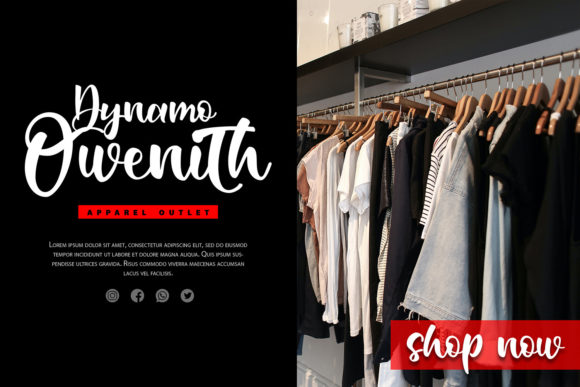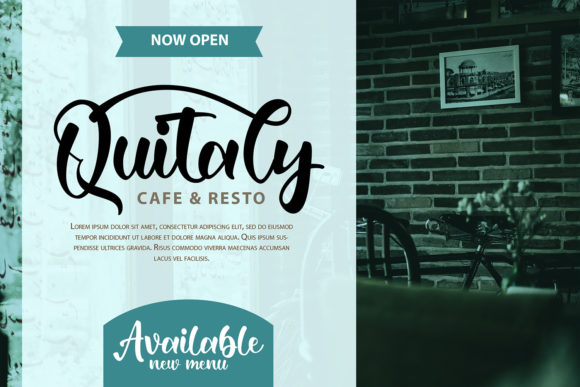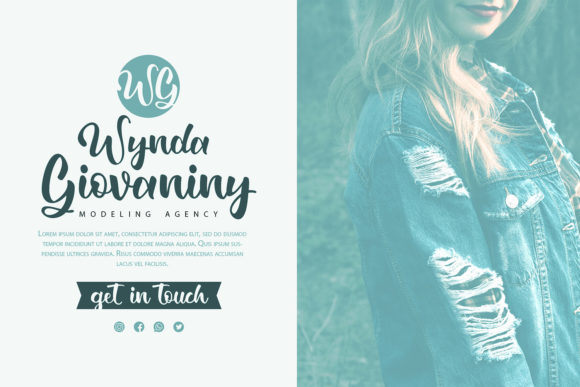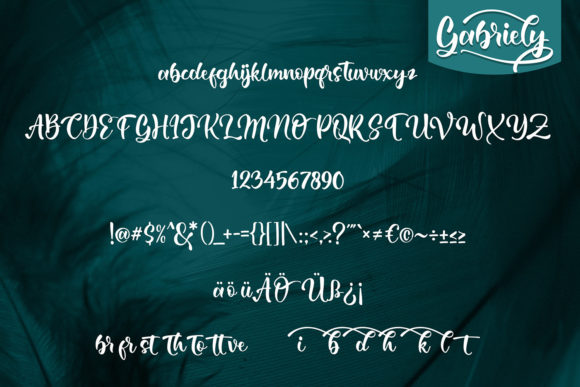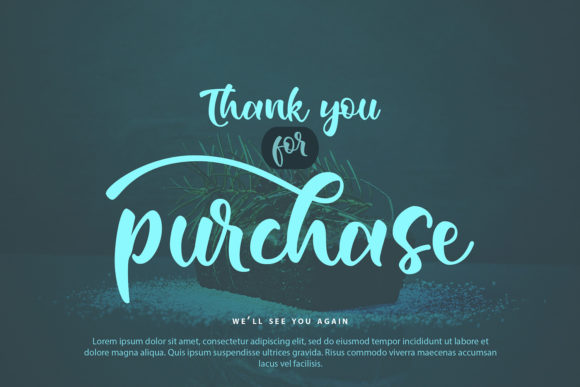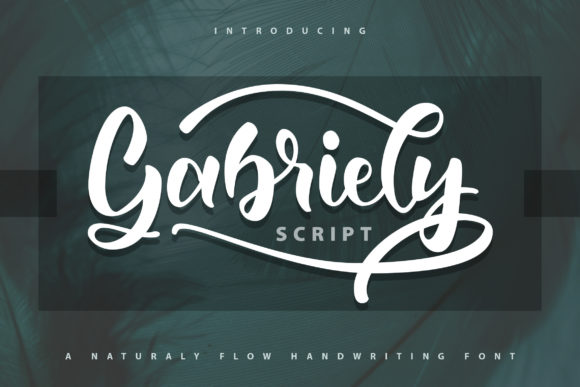
Introducing Gabrelly Font: Elevate Your Designs with Sophistication and Elegance
In the world of typography, a well-chosen font can make all the difference in transforming a design from ordinary to extraordinary. For those seeking a touch of sophistication and elegance, look no further than the Gabrelly Font. This chic, refined script font is designed to bring a level of luxury and refinement to any project, making it the perfect choice for designers and crafters aiming to leave a lasting impression.
The Essence of Gabrelly Font
Gabrelly Font stands out with its stylish alternates and ligatures, features that set it apart from more basic fonts. Its design is meticulously crafted to exude an air of elegance, making it an ideal match for projects that demand a high level of sophistication. Whether you’re working on a branding project, a wedding invitation, a fashion magazine, or any other design that requires a touch of class, Gabrelly Font is sure to meet your needs.
Key Features of Gabrelly Font
- Stylish Alternates: Gabrelly Font comes with a range of stylish alternates that allow you to customize your text, adding variety and uniqueness to your designs.
- Ligatures: The font includes beautifully designed ligatures, which help to create a flowing and harmonious look, perfect for elegant and sophisticated designs.
- Versatility: Despite its elegant appearance, Gabrelly Font is surprisingly versatile, suitable for a wide range of projects from digital content to print materials.
- Ease of Use: Gabrelly Font is designed to be user-friendly, making it easy to incorporate into your projects, even for those with limited design experience.
Applications of Gabrelly Font
The versatility of Gabrelly Font means it can be used in a multitude of applications, including:
- Branding and Logos: Create a lasting first impression with a logo that exudes elegance and sophistication.
- Wedding and Event Invitations: Add a touch of luxury and romance to your invitations, setting the tone for a memorable event.
- Fashion and Beauty: Perfect for fashion magazines, beauty blogs, and product packaging that demands a stylish edge.
- Web Design: Elevate your website’s aesthetic with a font that is both stylish and highly legible.
Why Choose Gabrelly Font?
In a sea of fonts, Gabrelly Font stands out for its unique blend of style, elegance, and versatility. Here are a few reasons why designers and crafters are choosing Gabrelly:
- Unique Designs: The font’s stylish alternates and ligatures offer a level of customization that can make your designs truly stand out.
- Time-Saving: With its comprehensive set of features, Gabrelly Font saves you time that would otherwise be spent searching for and pairing multiple fonts.
- Professional Look: Achieve a professional and polished look without the need for extensive design experience.
Gabrelly Font is more than just a script font; it’s a tool for designers and crafters to elevate their work to new heights of sophistication and elegance. Its stylish alternates, ligatures, and versatility make it an invaluable asset for anyone looking to add a touch of luxury to their designs. Whether you’re working on a high-end branding project, a stylish website, or a beautiful wedding invitation, Gabrelly Font is the perfect choice. Embrace the elegance and make your designs shine with Gabrelly Font.